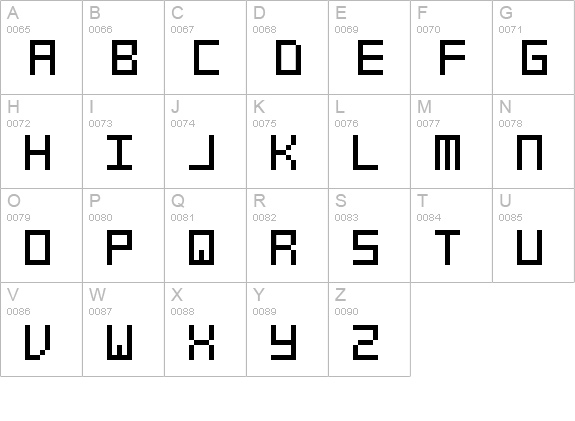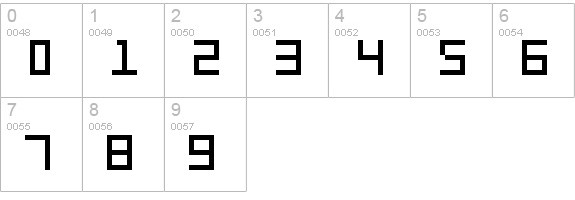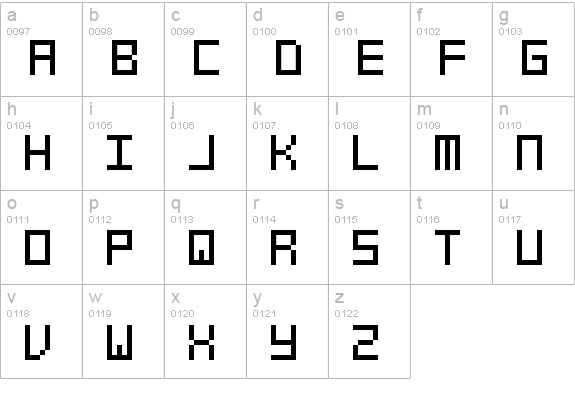
swfit_slm_fw Font Details
The swfit_slm_fw font is a beautifully designed typeface that exudes elegance and sophistication. Its sleek and modern aesthetic makes it perfect for a wide range of design projects, from branding to editorial design. The font features clean lines and a streamlined look that will add a touch of class to any project. Best of all, swfit_slm_fw is available for free download at FontsMarket.com. This means that you can easily add this stylish font to your collection without having to spend a dime. Whether you're a professional designer or a hobbyist looking to elevate your projects, swfit_slm_fw is a versatile and high-quality font that you won't want to miss out on. Download it today and see how it can enhance your designs!